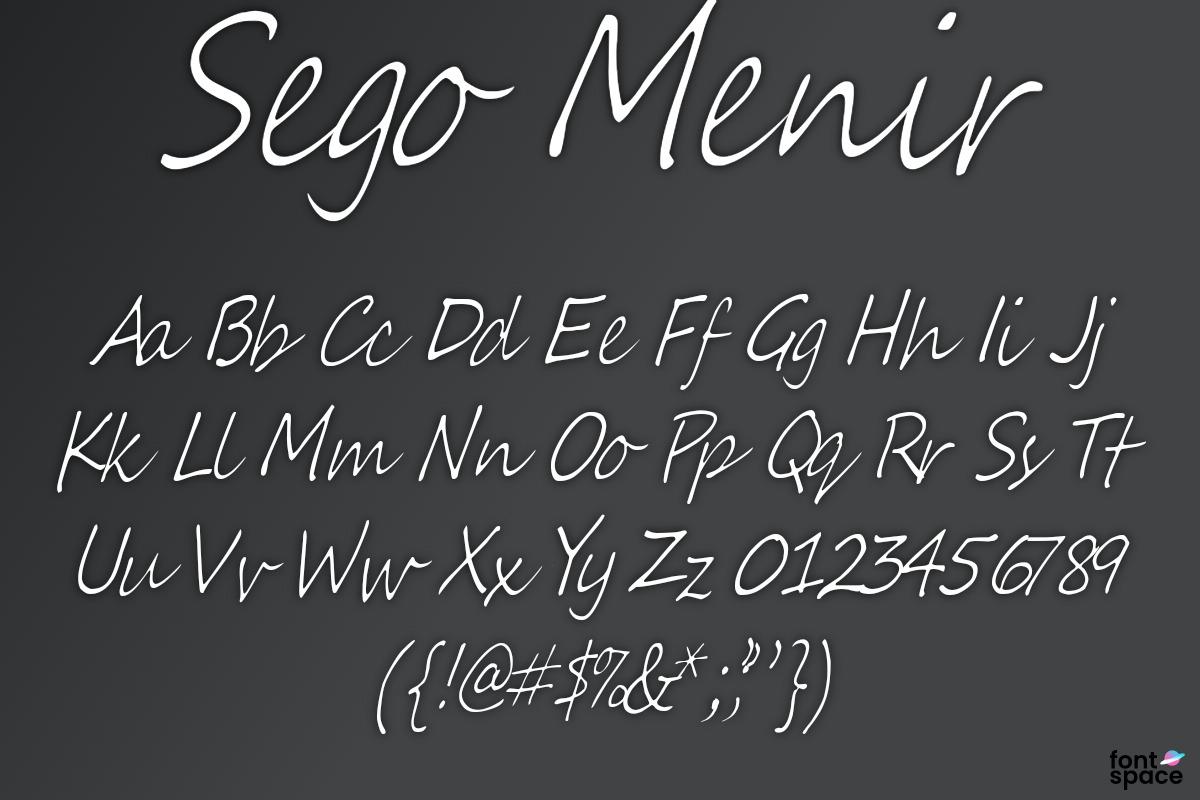
Introducing Sego Menir Font, which imitates quick hand writing. Perfect to demonstrate any notes, signs and reminders.
Includes upper and lowercase standard characters, punctuation, numerals and special glyphs, so the font can be used with most of the European languages.